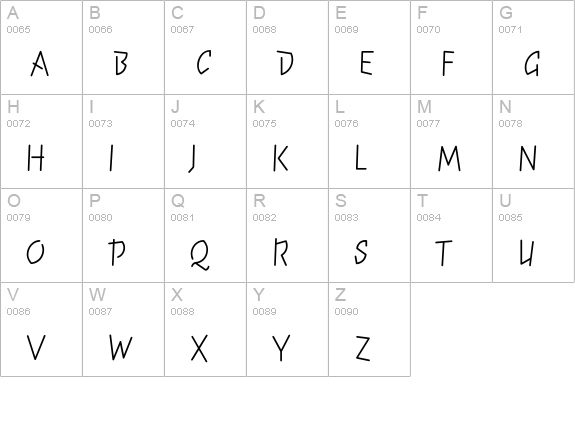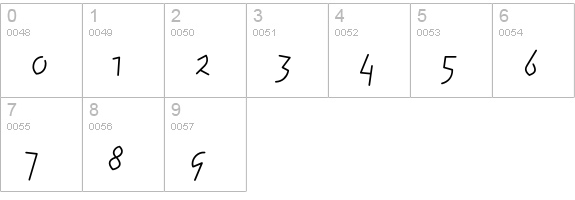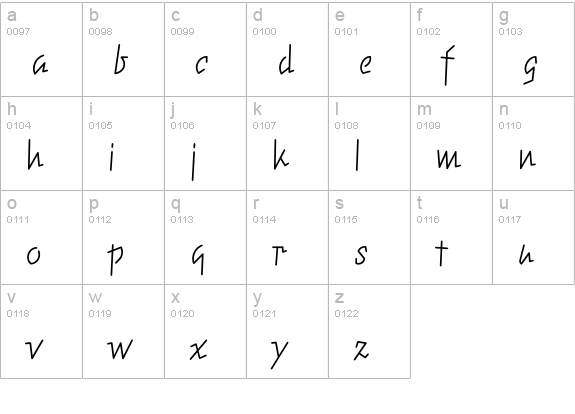
ElektrixLight Font Details
Introducing ElektrixLight, a sleek and modern font designed to bring a touch of sophistication to your projects. This font features clean lines and a unique design that is sure to make a statement. Whether you're creating a logo, designing a website, or working on a print project, ElektrixLight is the perfect choice to add a touch of elegance. What's even better is that ElektrixLight is available for free download at FontsMarket.com. So you can elevate your designs without breaking the bank. Don't miss out on this opportunity to enhance your creative work with the stylish and versatile ElektrixLight font. Download it today and start creating beautiful designs effortlessly.